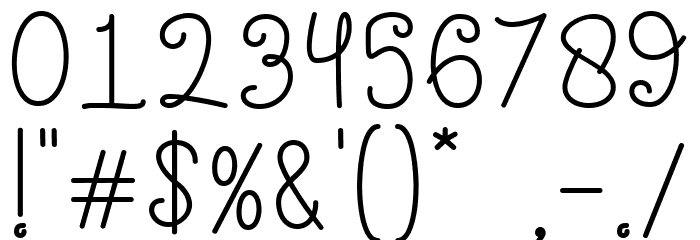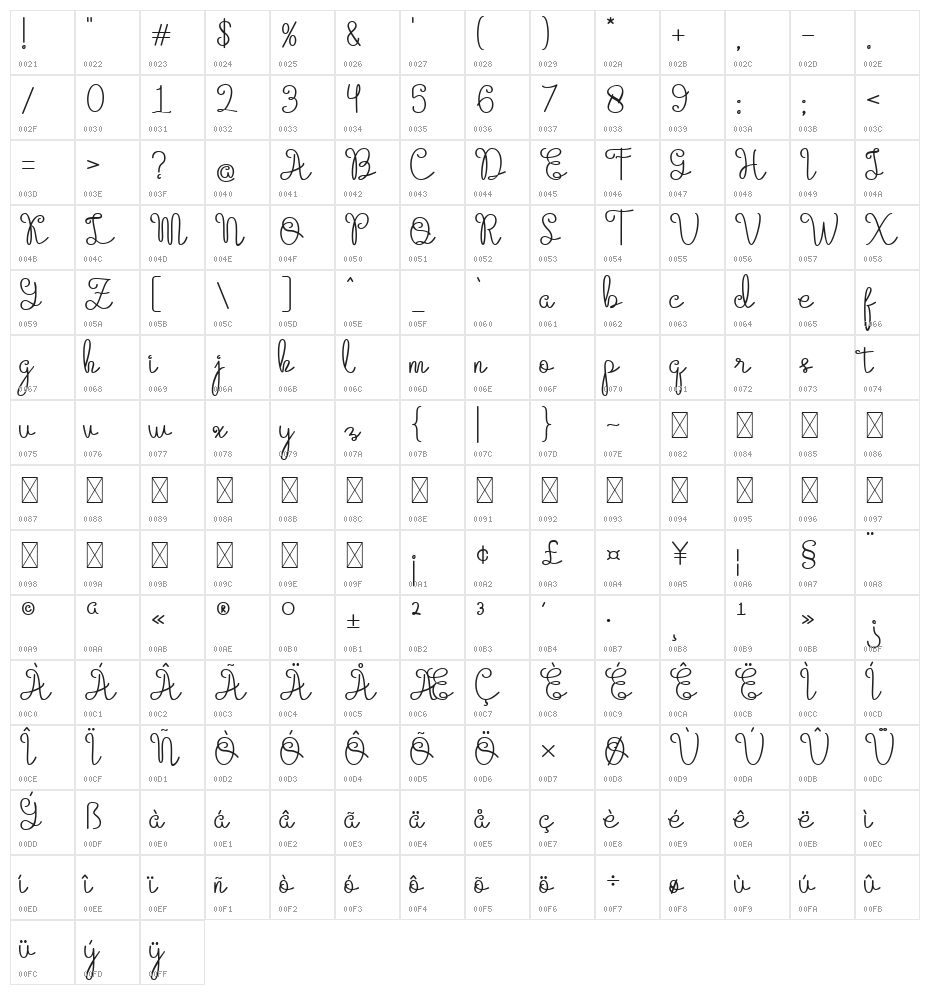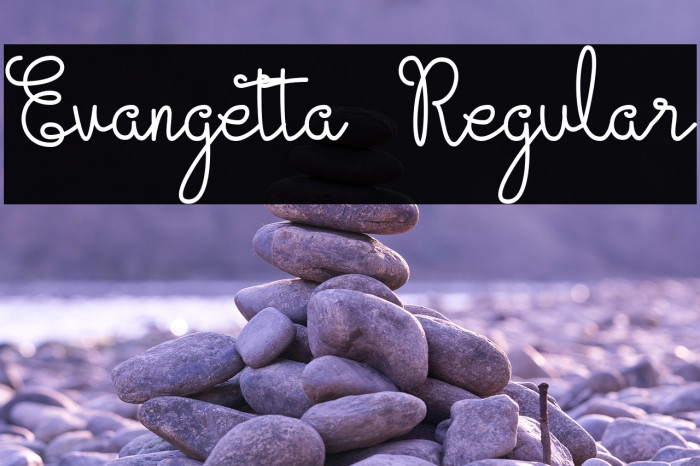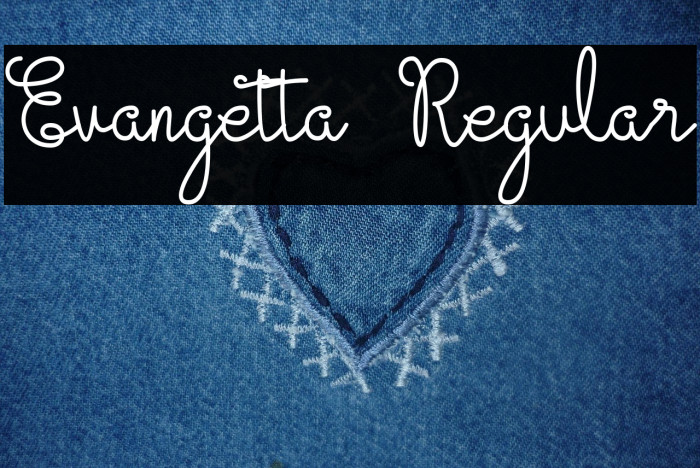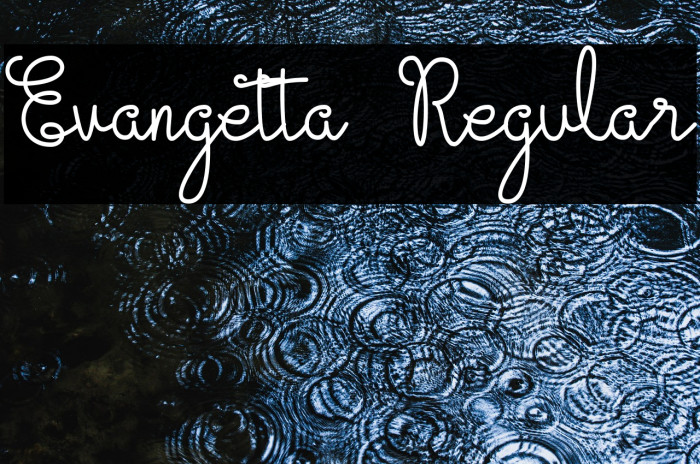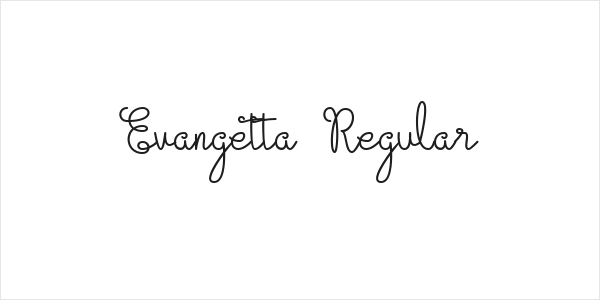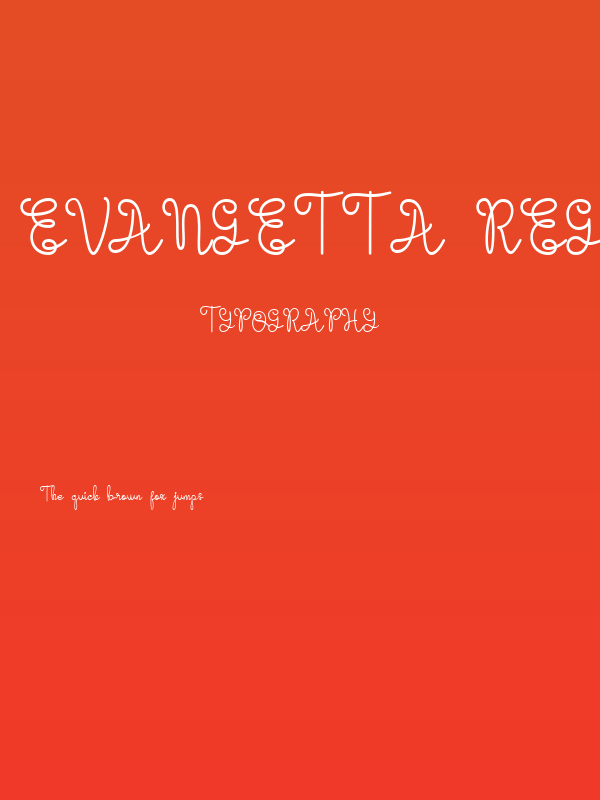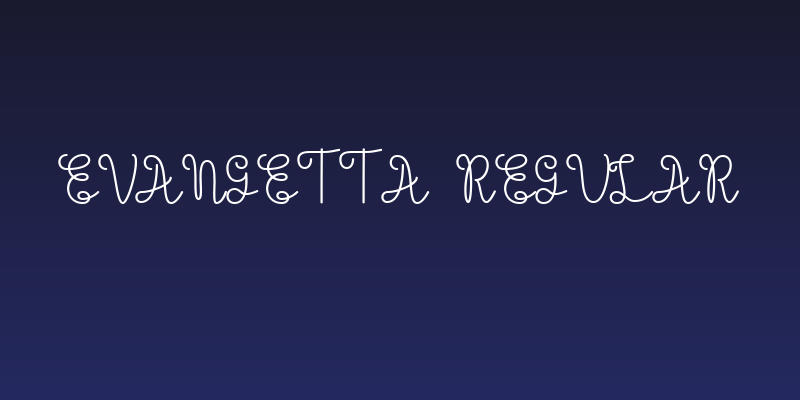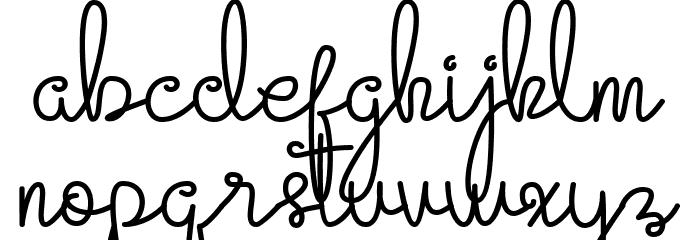
Evangetta Regular Font
Evangetta Regular Description
This font features a playful and whimsical design with a handwritten style. The uppercase letters are characterized by their looping and interconnected strokes, giving them a lively and dynamic appearance. The lowercase letters maintain a consistent flow, with some letters extending below the baseline, adding to the font's casual and friendly vibe. The numerals are clear and easy to read, while the special characters complement the overall style with their unique and creative forms. This font is perfect for projects that require a personal touch or a sense of fun and creativity.
| Proposed Projects | Ideal for greeting cards, invitations, children's books, and creative branding. |